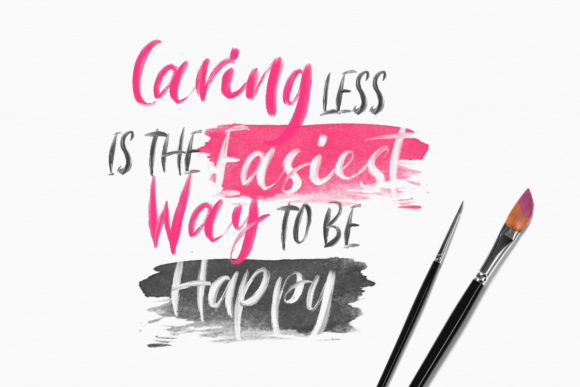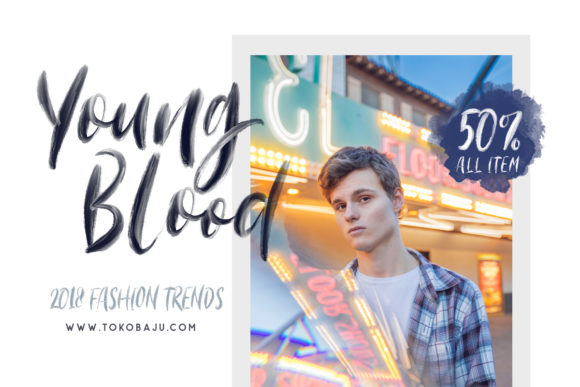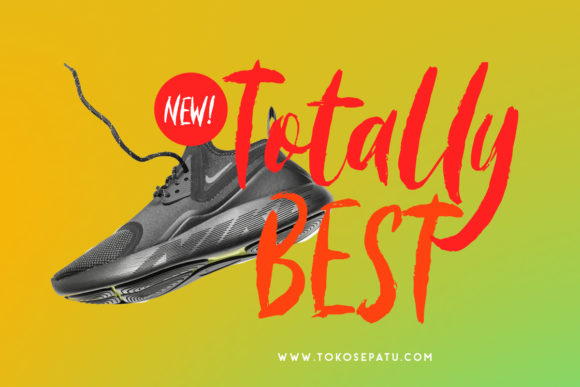
About Morriles Font
The Morriles is indeed an extraordinary SVG font that provides a wide array of options for achieving a realistic handwritten look in your designs. With its collection of five SVG versions and a script variant, this font offers versatility and creativity at your fingertips.
Whether you’re working on promotional materials, branding projects, or any design that requires a personal touch, The Morriles has got you covered. Each SVG variation brings its own unique style and texture, allowing you to experiment and create visually captivating designs effortlessly.
Embrace the diverse range of options that The Morriles offers and let your creativity soar. Whether you prefer a bold and textured look or a delicate and intricate script style, this font has the flexibility to adapt to your design needs.
Incorporate The Morriles into your projects and watch as your designs come to life with an authentic handwritten feel. Download this extraordinary SVG font and unlock a world of possibilities for your designs.